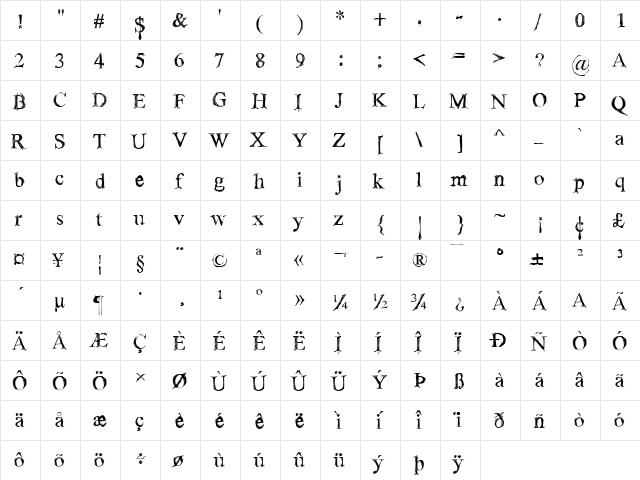
!Sketchy Times Bold
Design Context for !Sketchy Times Typeface
!Sketchy Times is a composed and adaptable typeface that performs quietly and consistently across a wide range of design contexts. The heavy weight commands attention and anchors typographic hierarchies.